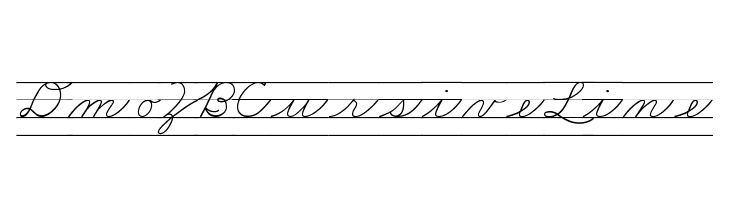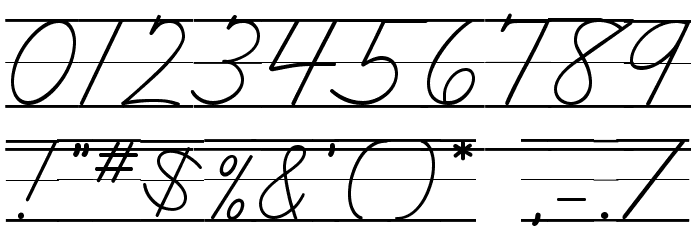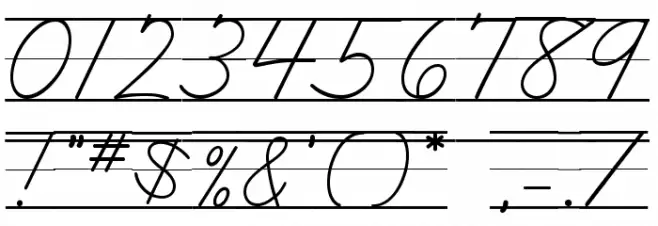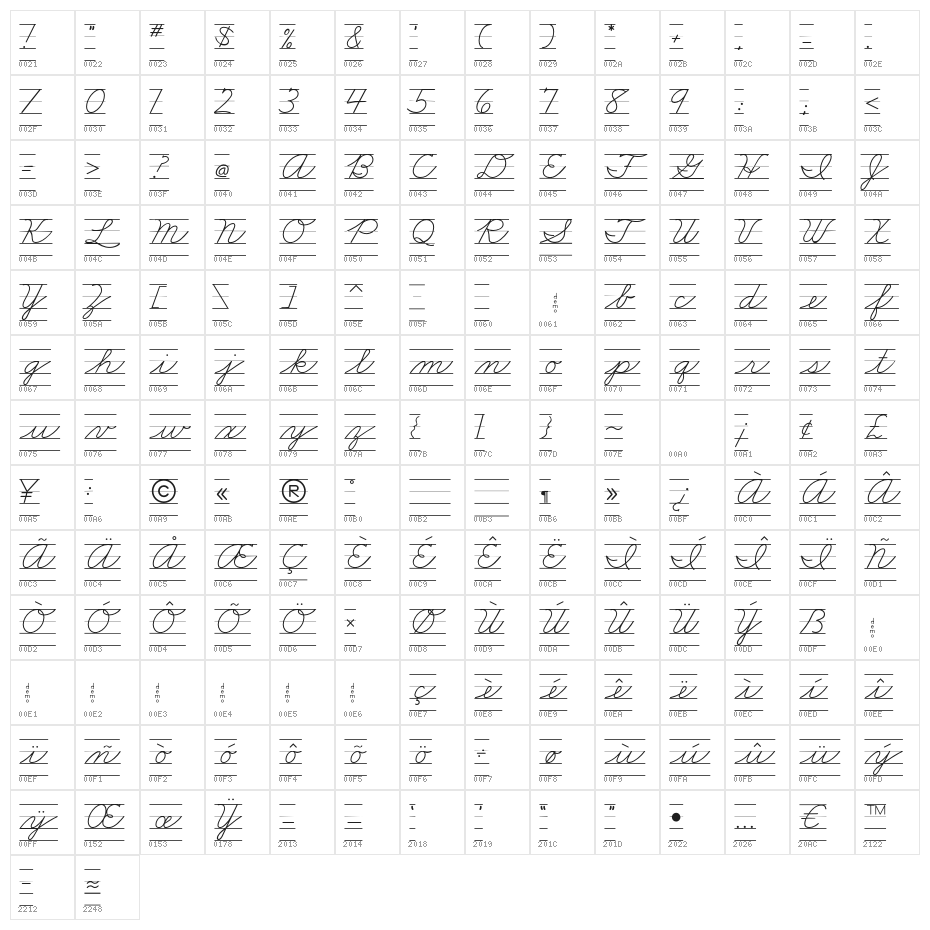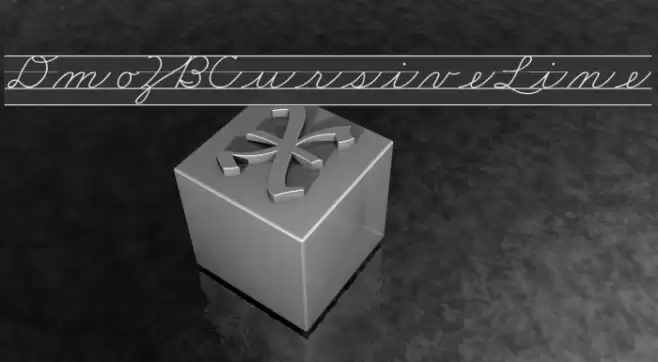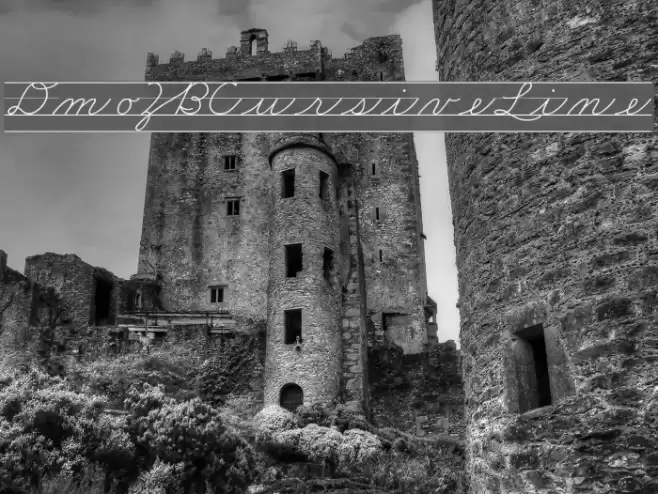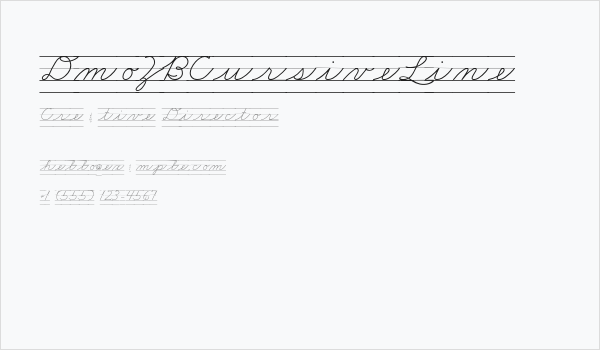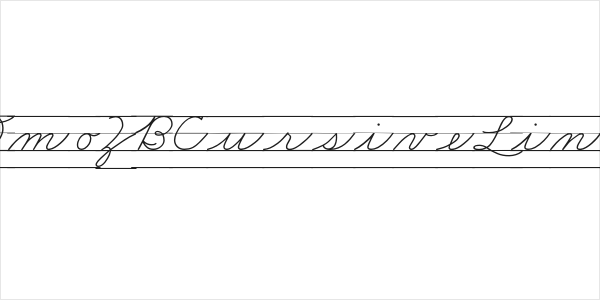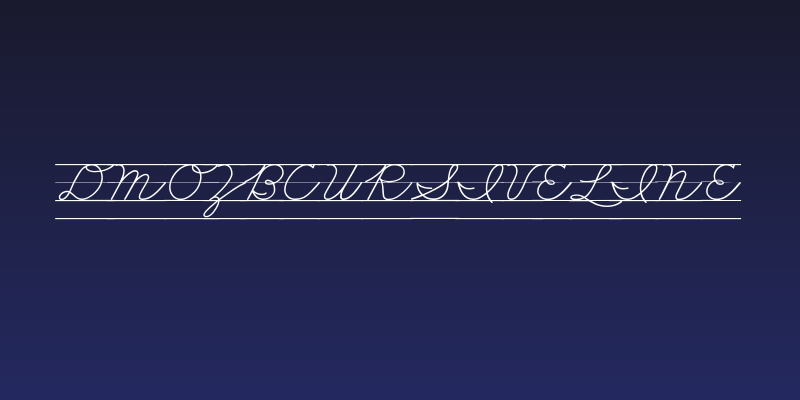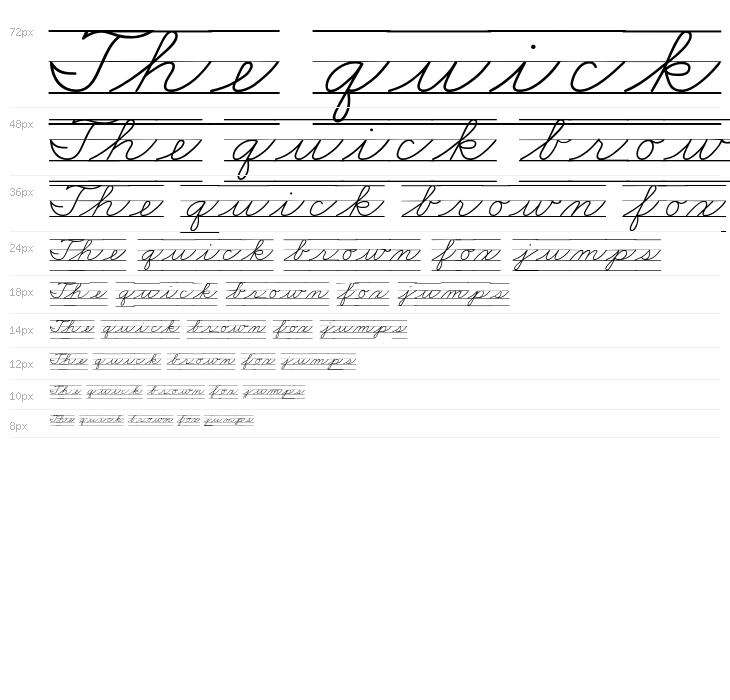
DmoZBCursiveLine Font
DmoZBCursiveLine Description
This elegant cursive font features smooth, flowing lines that mimic traditional handwriting. Each letter is connected, creating a seamless and fluid appearance. The uppercase letters are slightly more elaborate, with graceful loops and curves, while the lowercase letters maintain a consistent slant and uniformity. The numerals are clear and easy to read, matching the style of the letters. Special characters are integrated seamlessly, maintaining the overall aesthetic. This font exudes a classic and sophisticated feel, ideal for formal invitations or personal correspondence.